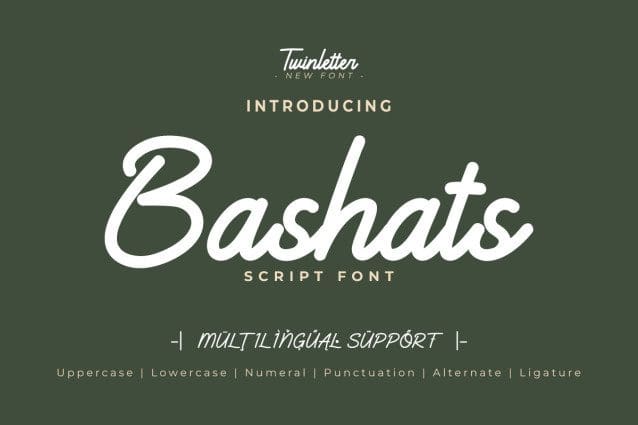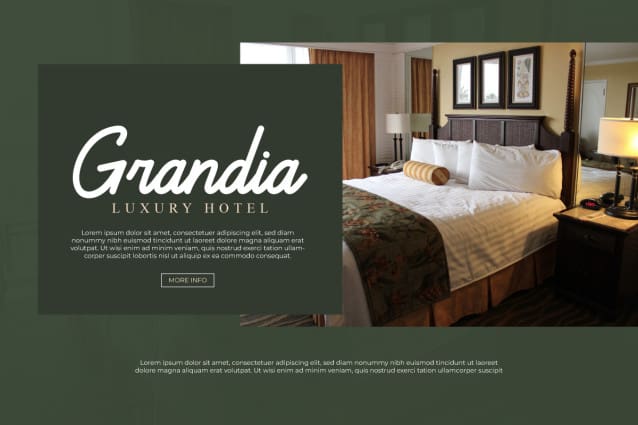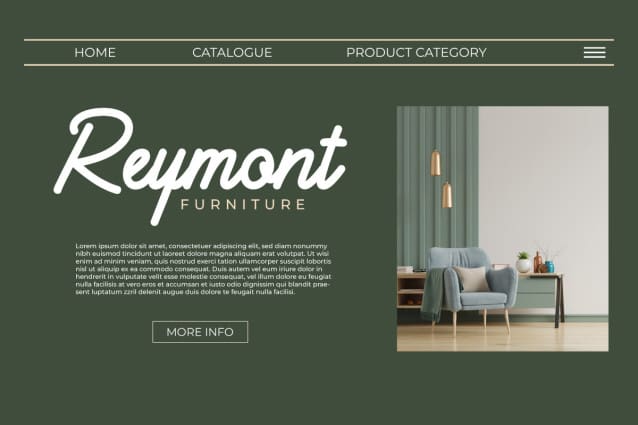
Bashats Script Font
Bashats Script Font is a script monoline font that combines simplicity with style. Its clean, smooth lines make it perfect for minimalist designs, while its unique characters add a touch of creativity. Whether you’re designing a logo for a modern brand or creating a stylish headline, Bashats Script is the perfect choice. It’s not just a font, it’s a statement of style. Bashats Script is the embodiment of modern minimalism, perfect for those who appreciate simplicity but still want their designs to stand out.